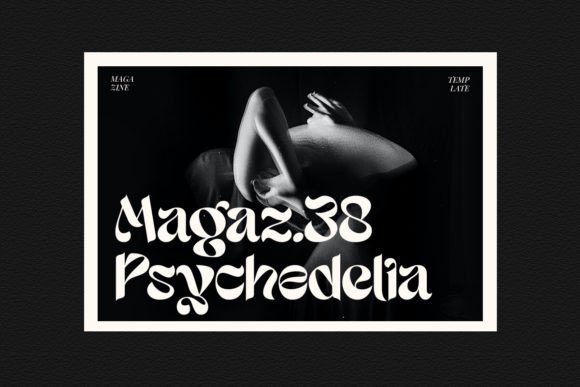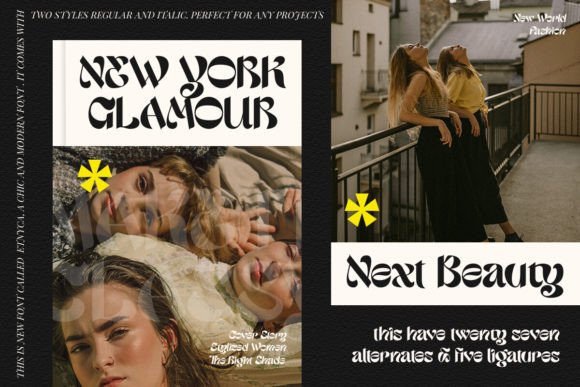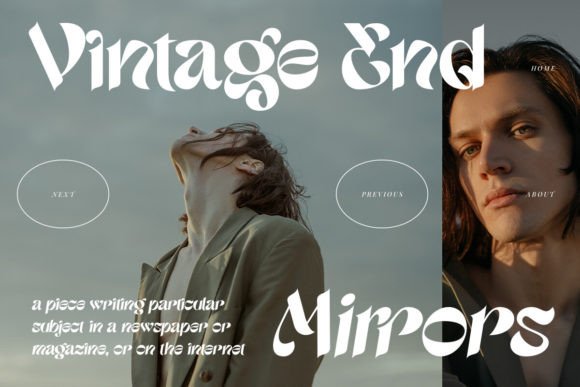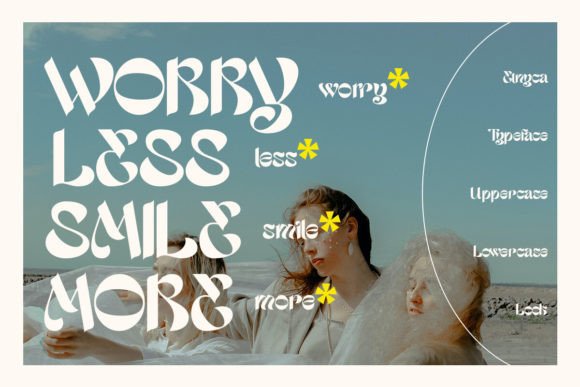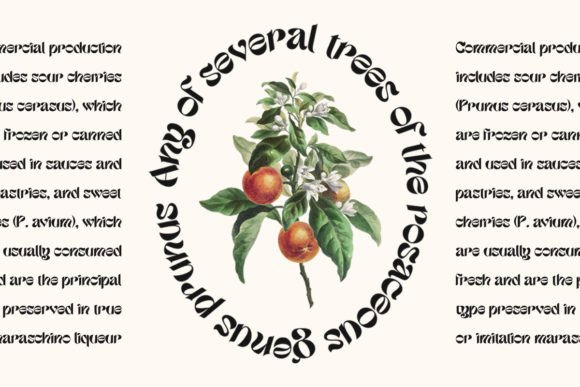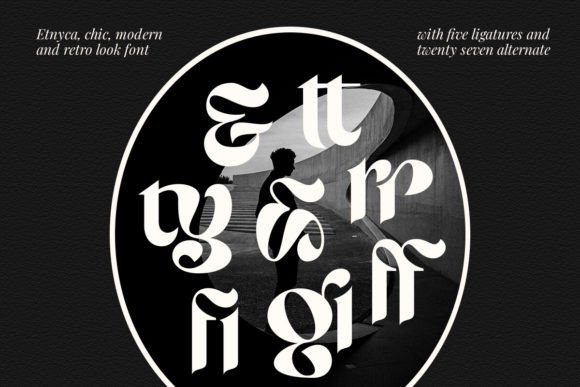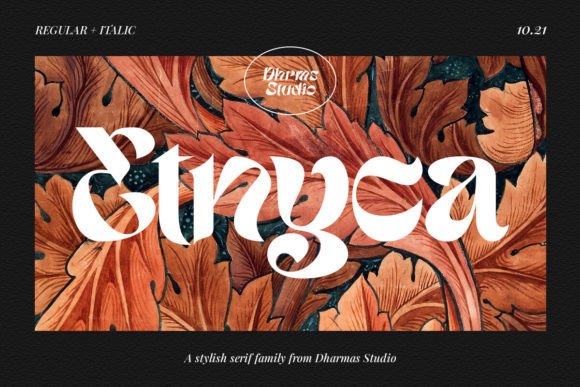
Introducing Etnyca Font: The Fearless and Stylish Typeface for Headlines
Are you tired of using the same old fonts for your headlines? Do you want to add a touch of modernity and playfulness to your designs? Look no further than Etnyca Font, the perfect typeface for print and web projects. In this article, we’ll dive into the features and benefits of Etnyca Font, and explore how it can elevate your designs to the next level.
What is Etnyca Font?
Etnyca Font is a modern, bold, and playful typeface designed to make a statement. Its fearless and stylish aesthetic makes it perfect for headlines, titles, and logos. The font comes with an Italic style, unique lower and uppercase letters, numbers, punctuation, and multilingual letters, giving you endless possibilities for creative expression.
Key Features of Etnyca Font
- Modern and Bold Design: Etnyca Font boasts a sleek and contemporary design that’s sure to grab attention.
- Italic Style: Add an extra layer of sophistication to your designs with the included Italic style.
- Unique Lower and Uppercase Letters: The font features distinctive and stylish letterforms that will set your designs apart.
- Multilingual Support: Etnyca Font includes multilingual letters, making it perfect for global brands and designers.
- Numbers, Punctuation, and Symbols: The font includes a full range of numbers, punctuation, and symbols, giving you everything you need to create stunning designs.
Perfect for Headlines and Titles
Etnyca Font is specifically designed for headlines and titles, making it perfect for:
- Print Projects: Use Etnyca Font to create eye-catching posters, flyers, brochures, and more.
- Web Projects: Add a touch of modernity to your website or blog with Etnyca Font.
- Logos and Branding: Create a lasting impression with Etnyca Font’s unique and memorable letterforms.
Nostalgic Mood Boards and Vintage Logos
Etnyca Font’s unique design also makes it perfect for nostalgic mood boards and vintage logos. The font’s bold and playful aesthetic has a retro feel that’s sure to evoke a sense of nostalgia and timelessness.
Why Choose Etnyca Font?
With so many fonts available, why choose Etnyca Font? Here are just a few reasons:
- Unique Design: Etnyca Font’s distinctive design sets it apart from other fonts.
- Versatility: The font is perfect for a wide range of projects, from print and web to logos and branding.